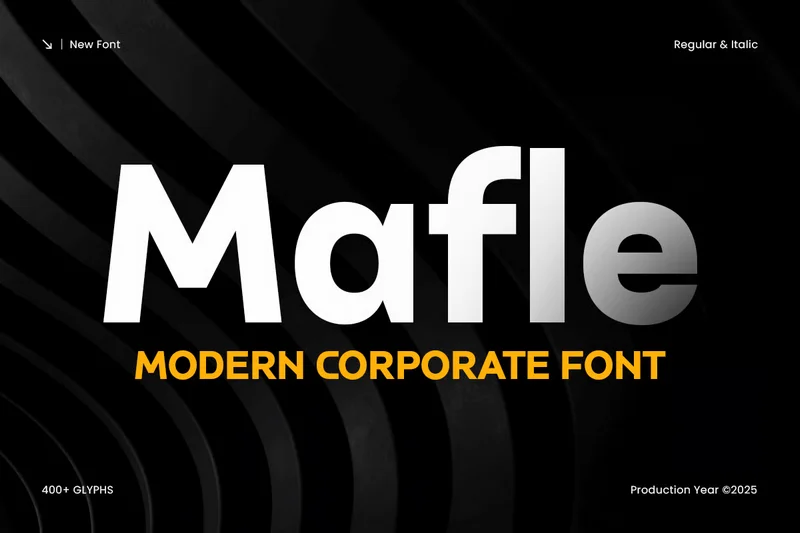
Mafle – Modern Corporate Font
Mafle is a modern corporate font designed to elevate professional branding and business communication with clean precision. Created for companies, startups, and agencies that value simplicity and trust, Mafle brings a sleek and contemporary tone to every visual identity.
Perfect for logos, presentations, websites, reports, and corporate marketing materials, Mafle combines geometric balance with effortless readability. Its minimal yet elegant style makes it ideal for industries such as technology, finance, consulting, architecture, and real estate — where professionalism and clarity are essential.
Whether you’re designing a logo for a new brand or refreshing an established identity, Mafle provides a polished, confident appearance that adapts beautifully across print and digital platforms. Pair it with light sans serifs for a refined corporate system or use it as a strong headline font in your next presentation.
MAFLE – Modern Corporate Font Features
Clean and modern corporate typeface for business branding
Available with Regular and Italic Version for The Best results
Perfect for logos, presentations, websites, and corporate documents
Geometric letterforms for high readability and visual balance
Works seamlessly across digital and print designs
Uppercase, lowercase, numerals, and punctuation included
OpenType features for advanced design flexibility
Present your brand with confidence using Mafle – the ultimate modern corporate font for business, digital, and professional designs. 💼✨